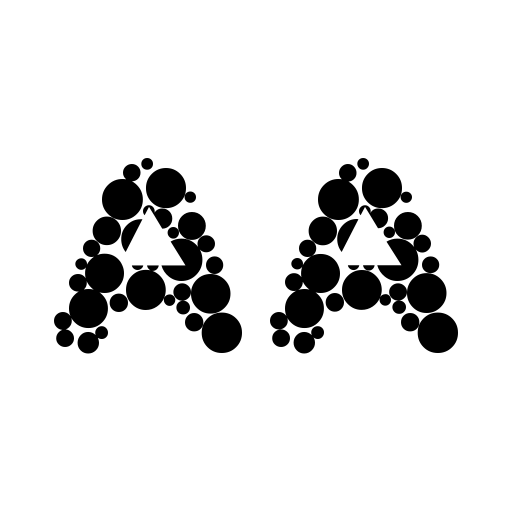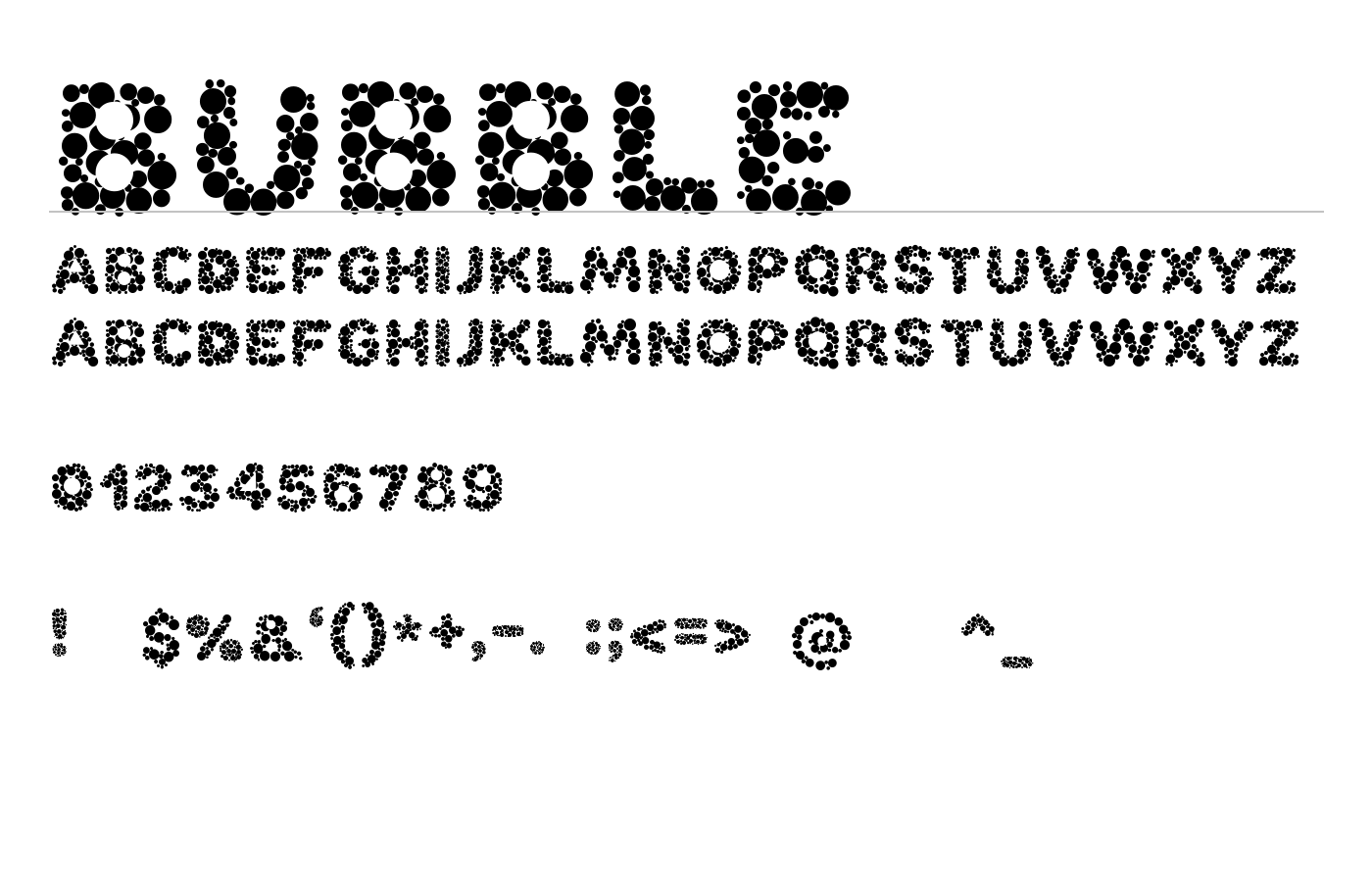
Bubble Font is a playful and unique display typeface composed entirely of varying-sized circular dots that form bold, rounded letter shapes. Its whimsical, bubbly style makes it perfect for fun, informal designs like children’s products, party invitations, or creative branding that seeks to convey energy and joy. Best used at larger sizes, it grabs attention with its eye-catching, textured appearance while adding a lively, modern vibe to any project.
Bubble Font
About Bubble Font
| Font family | Bubble Font |
| Designer | Saqib Ahmad |